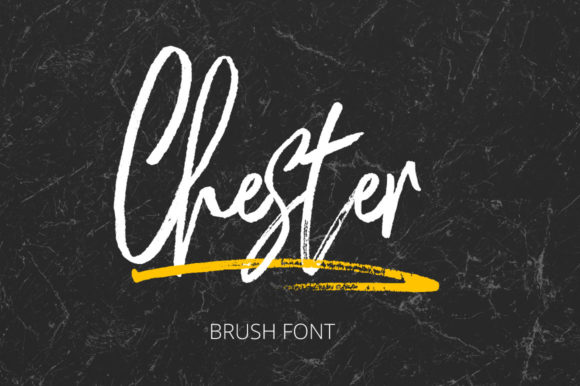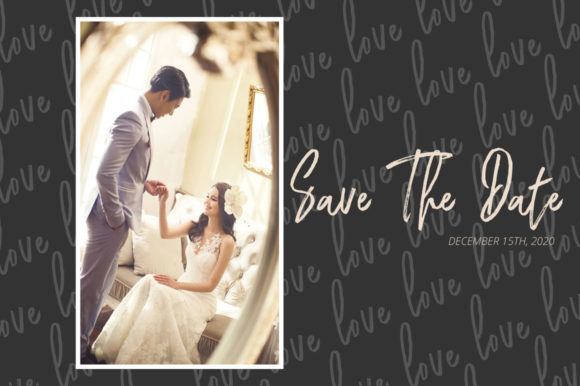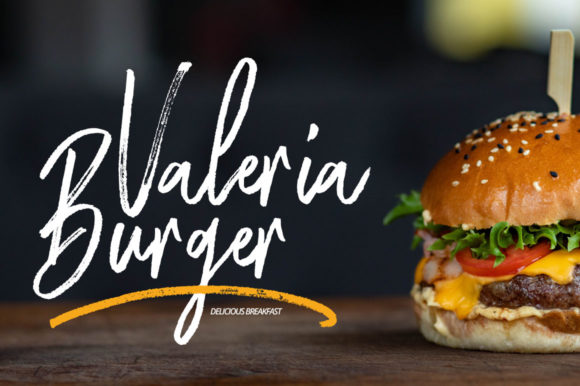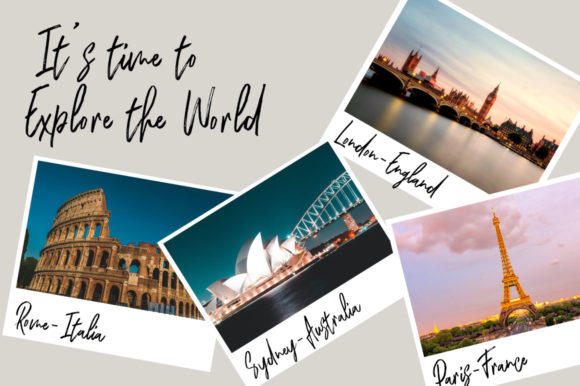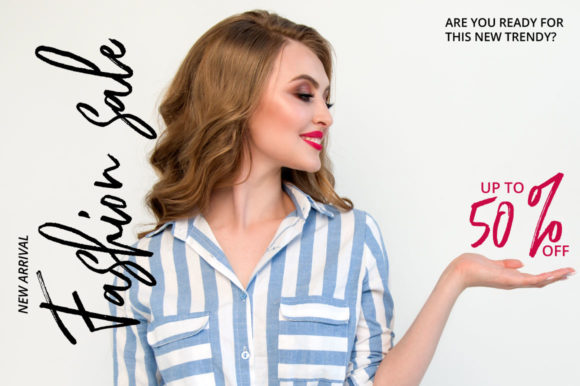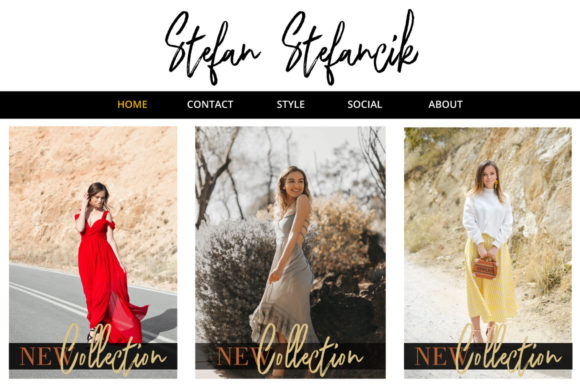
HomeScript FontsChester Font Script Fonts Chester Font FacebookXPinterestWhatsApp Chester Font Poster 2 Chester Font Poster 3 Chester Font Poster 4 Chester Font Poster 5 Chester Font Poster 6 About Chester Font Chester handmade brush style font with stunning characters. Ideal for a wide variety of crafting projects! DOWNLOAD ON CREATIVE FABRICAThis font is sold and delivered by Creative Fabrica. Font Canyon may earn a commission if you buy through this link. People also explored Baseball Font Daylight Font Winter Season Font Tropical Font Brogles a Playful Rounded Font Jolly Blues Font Culture Font England Barbiel Font 306 0 TagsChester Font Previous articleBetharie FontNext articleKingfisher Font LEAVE A REPLY Cancel reply Comment: Please enter your comment! Name:* Please enter your name here Email:* You have entered an incorrect email address! Please enter your email address here Website: Save my name, email, and website in this browser for the next time I comment. Personal Use Free BD Lofi Personal Use Free Read more about this font Mounets Personal Use Free Read more about this font Spring Personal Use Free Read more about this font Krase Personal Use Free Read more about this font BLOG Modern Sans-Serif Fonts That Brands Love in 2025 In 2025, modern sans-serif fonts remain a top choice for brands looking to project clarity, professionalism, and... Free vs Paid Fonts: Why Investing in Premium Fonts Is Worth It Best Fonts for YouTube Videos: Make Your Thumbnails Stand Out Best Fonts for T-Shirt Design – Top 2025 Picks